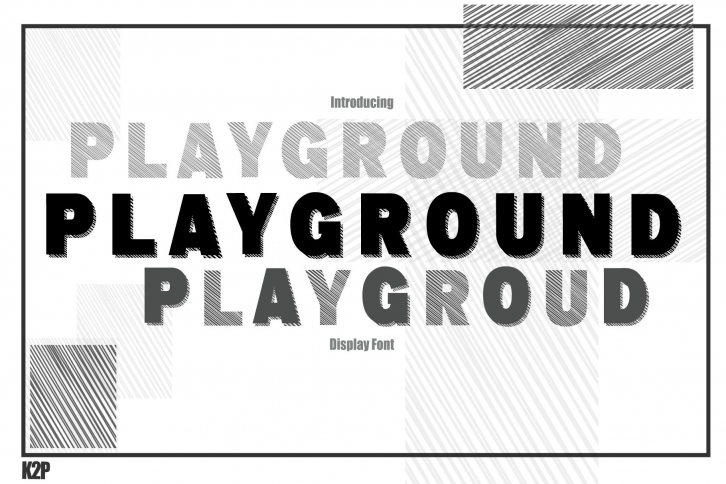
Playground is a bold, rough-textured, and assertive display font. It can be used for various design ideas related to speed, sports, or both. Have fun with this beautiful font and explore its endless variations.